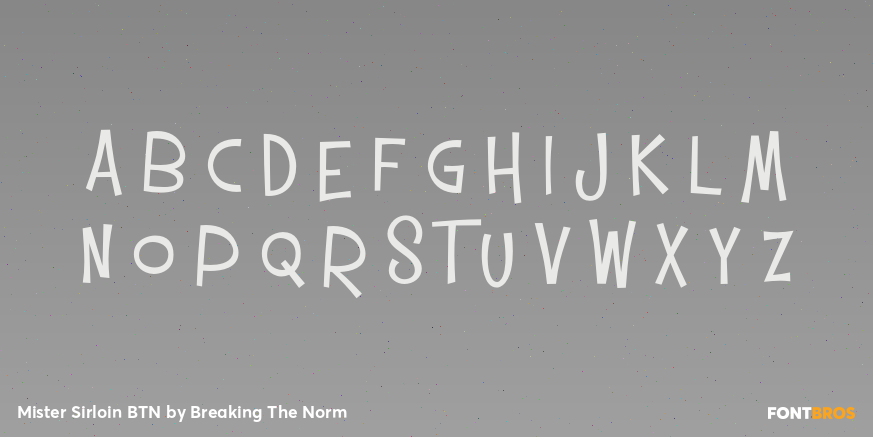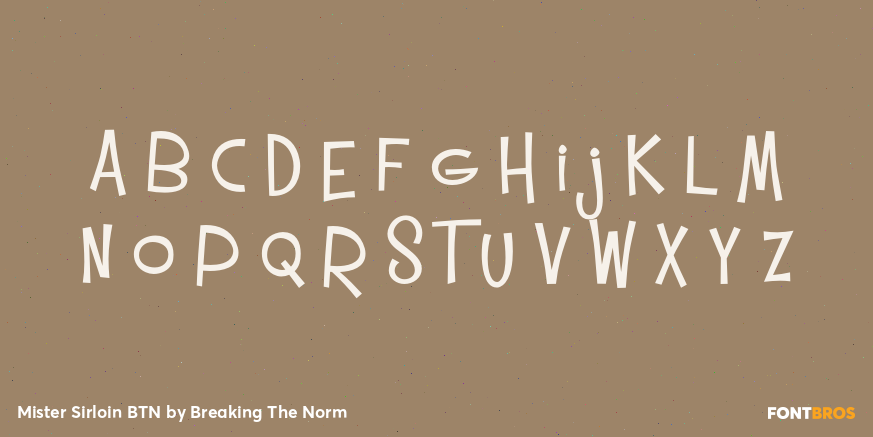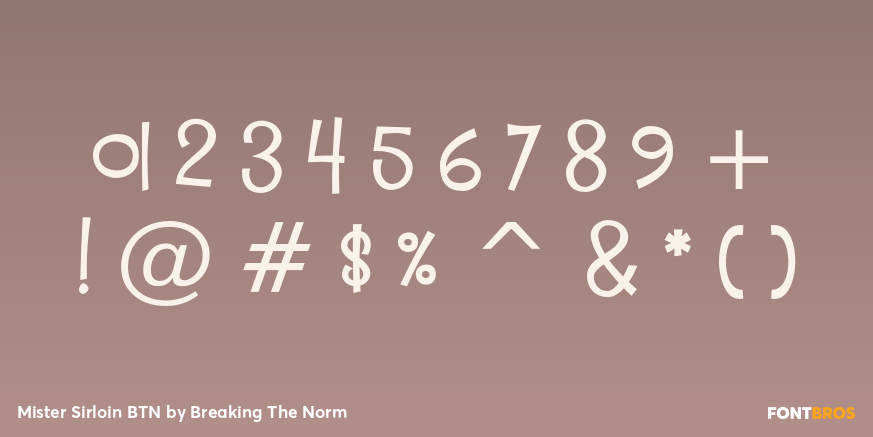
Mister Sirloin BTN
Font Family by Breaking The Norm
Mister Sirloin BTN is a bold, playful display family cooked up with big personality and a hearty visual presence. Built around three "beefy" styles—Rare, Medium, and Well—it brings a fun food-themed attitude to typography while staying strong, readable, and full of character. Mister Sirloin BTN is a natural fit for restaurant branding, menus, signage, packaging, posters, barbecue themes, novelty graphics, and playful headlines that need a chunky, appetizing voice. Its flavorful concept and sturdy forms make it a lively display choice for designs that want warmth, humor, and bold visual impact.